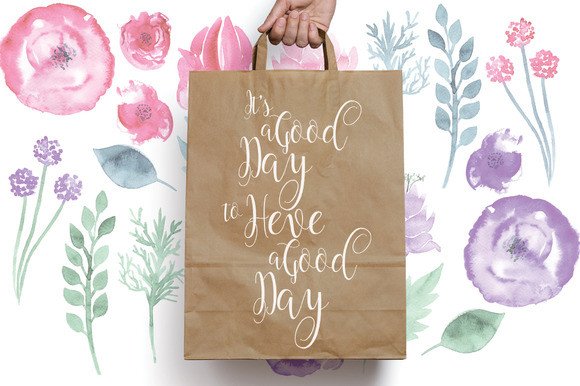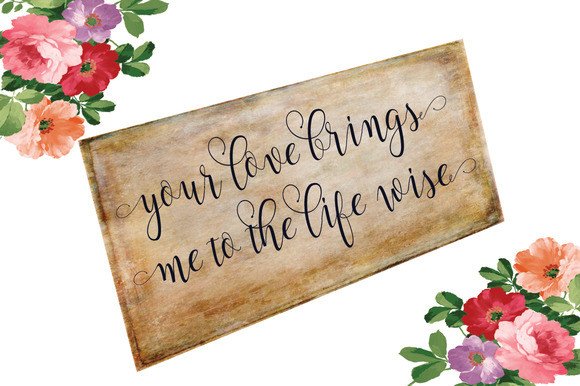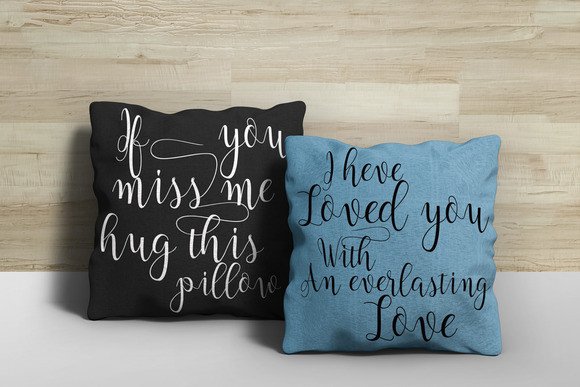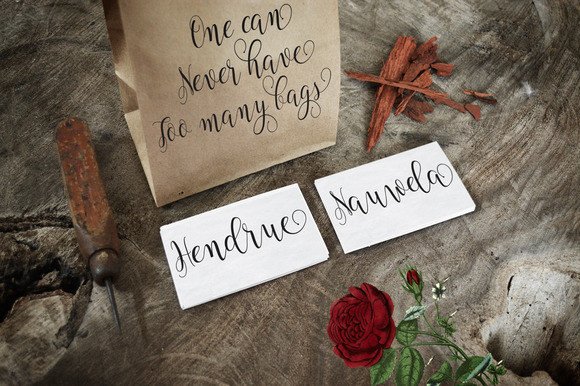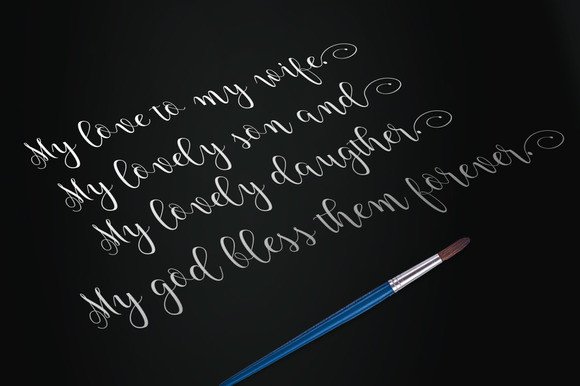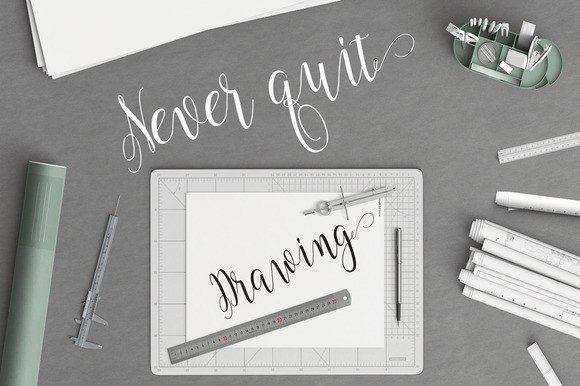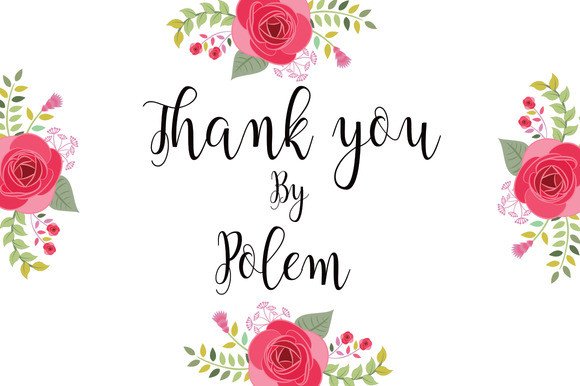
Annamelia Font
About Annamelia Font
Annamelia is a handmade font and has a unique form of calligraphy. The writing style is very natural. Annamelia is very suitable for modern designs.